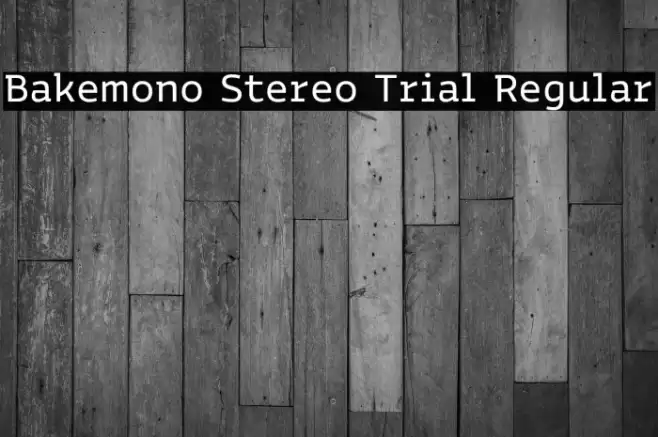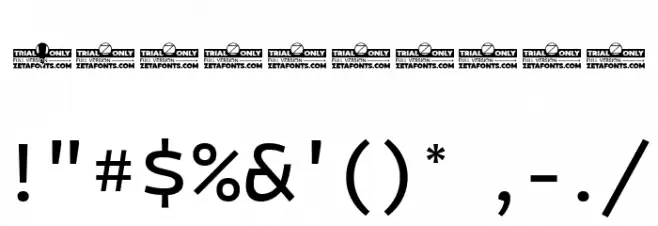
Bakemono Stereo Trial Regular Font
Bakemono Stereo Trial Regular Description
This font presents a clean and modern aesthetic with a monospaced design. Each character is uniformly spaced, providing a structured and organized appearance. The letters are crafted with a geometric precision, featuring straight lines and consistent curves that enhance readability. The uppercase and lowercase letters maintain a balanced proportion, while the numerals and special characters integrate seamlessly into the overall design. This font's simplicity and clarity make it versatile for various applications, offering a professional and contemporary look.
A clean, modern monospaced font with geometric precision from Basic fonts.
- Proposed Projects: Ideal for coding environments, technical documents, and minimalist design projects.
- Use Case: Coding, Technical documents, Minimalist designs